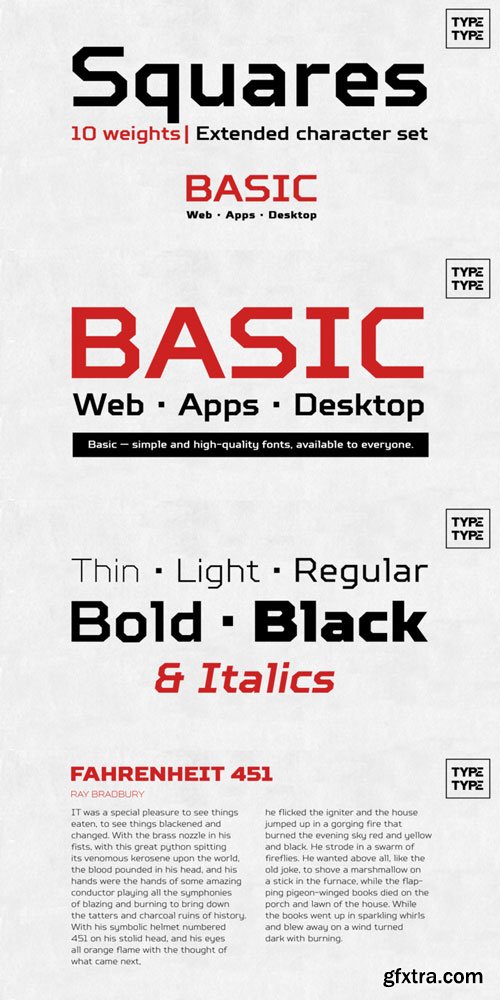
In the fontfamily Squares, we have implemented the most demanded idea — octagonal and square fonts in 10 typefaces. Squares have unlimited opportunities to use: text, logos, branding, web design and many others.